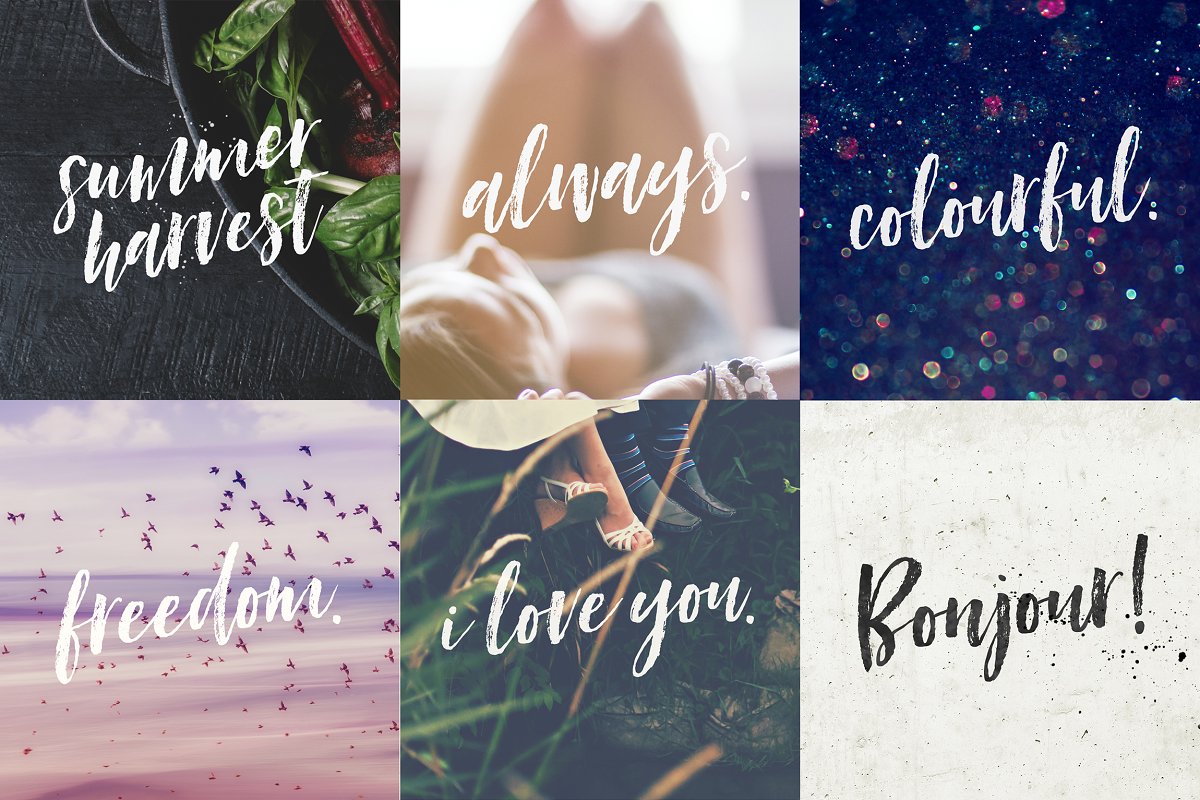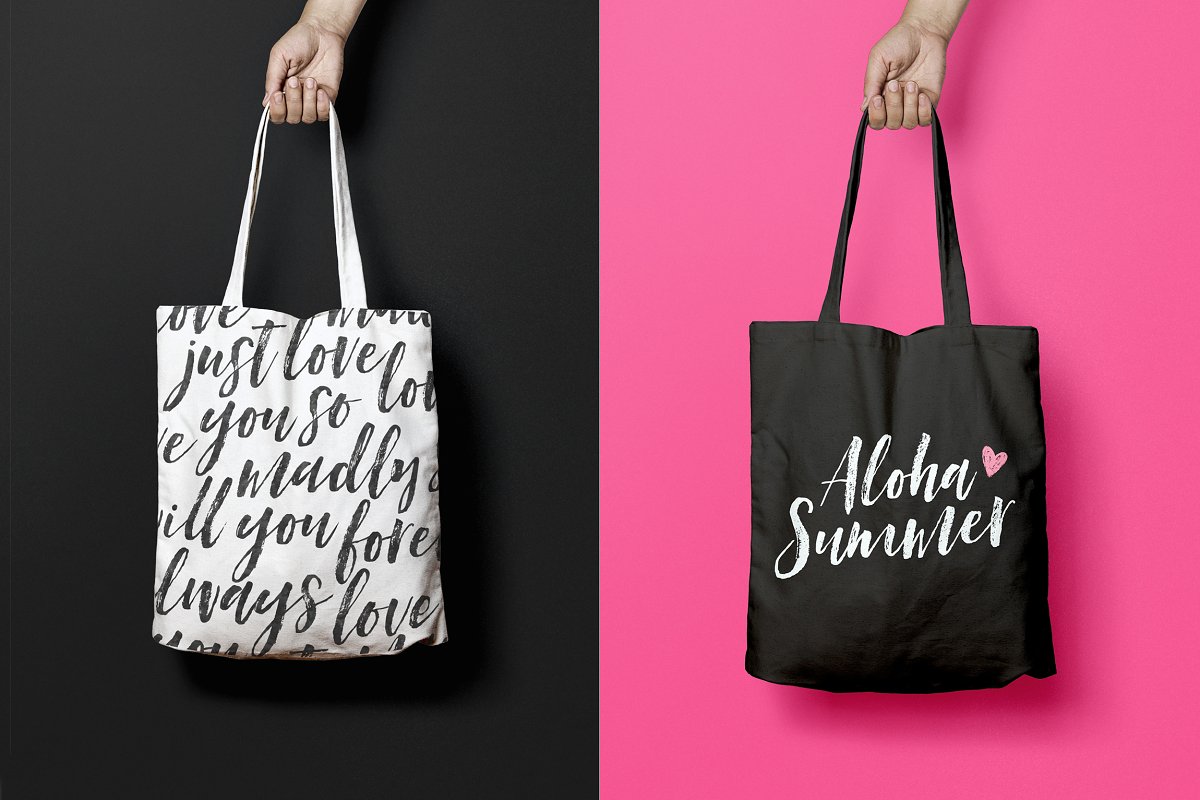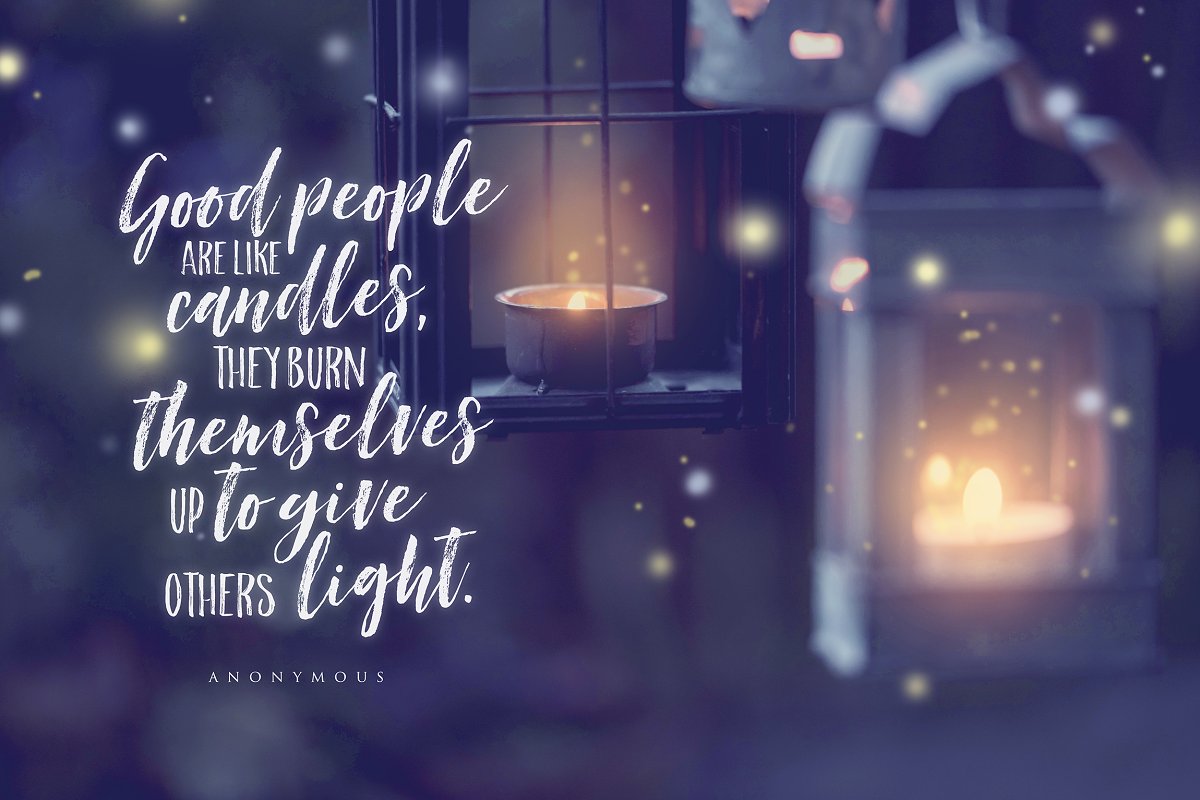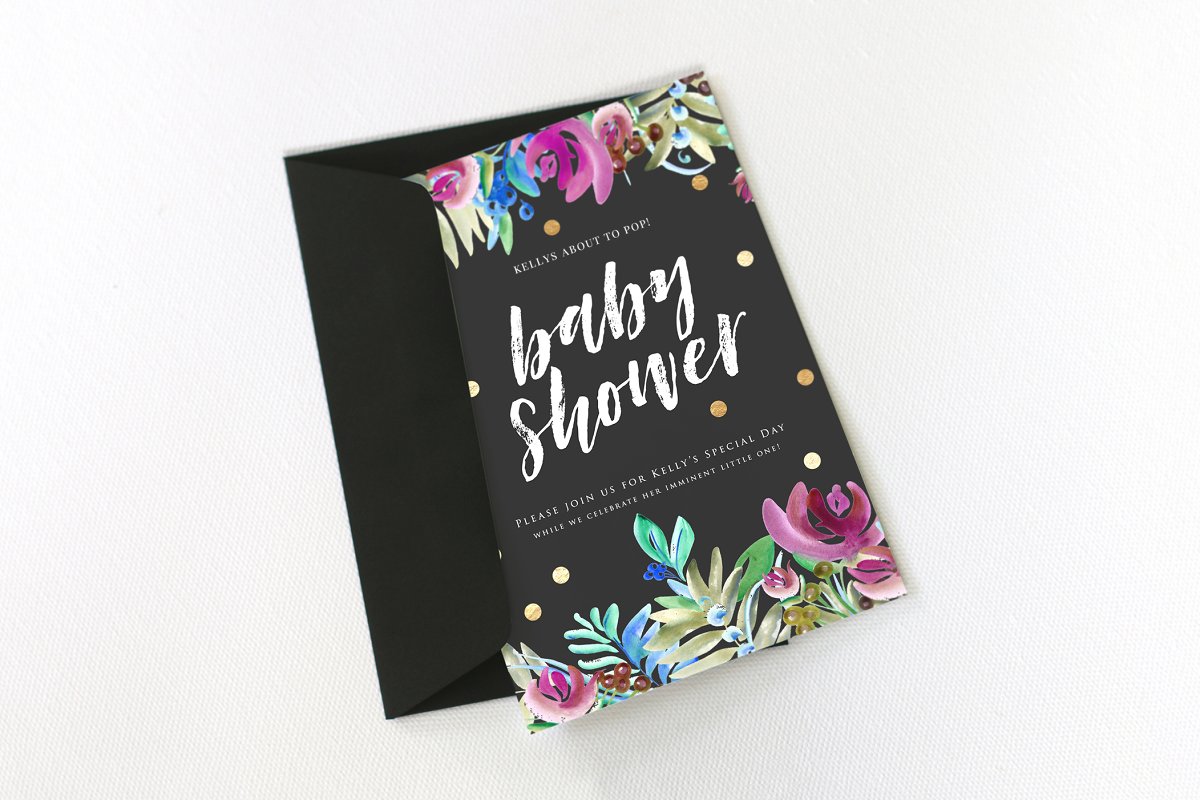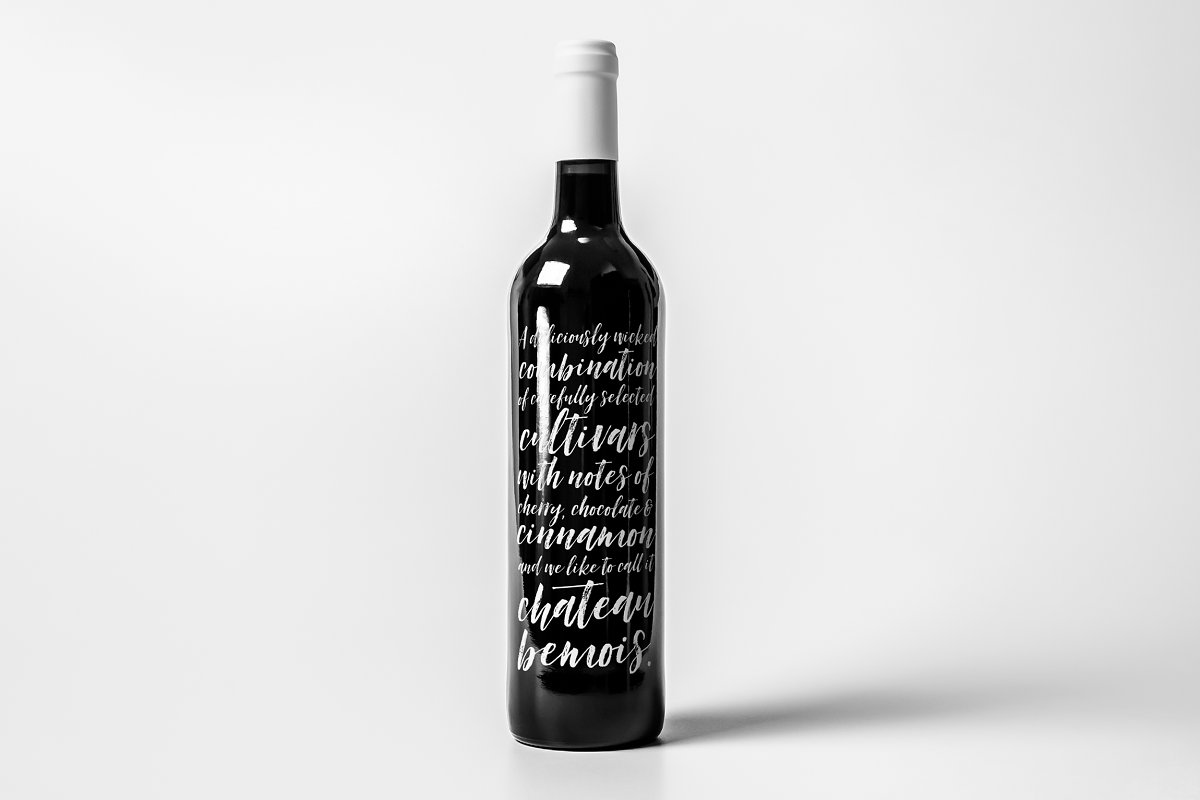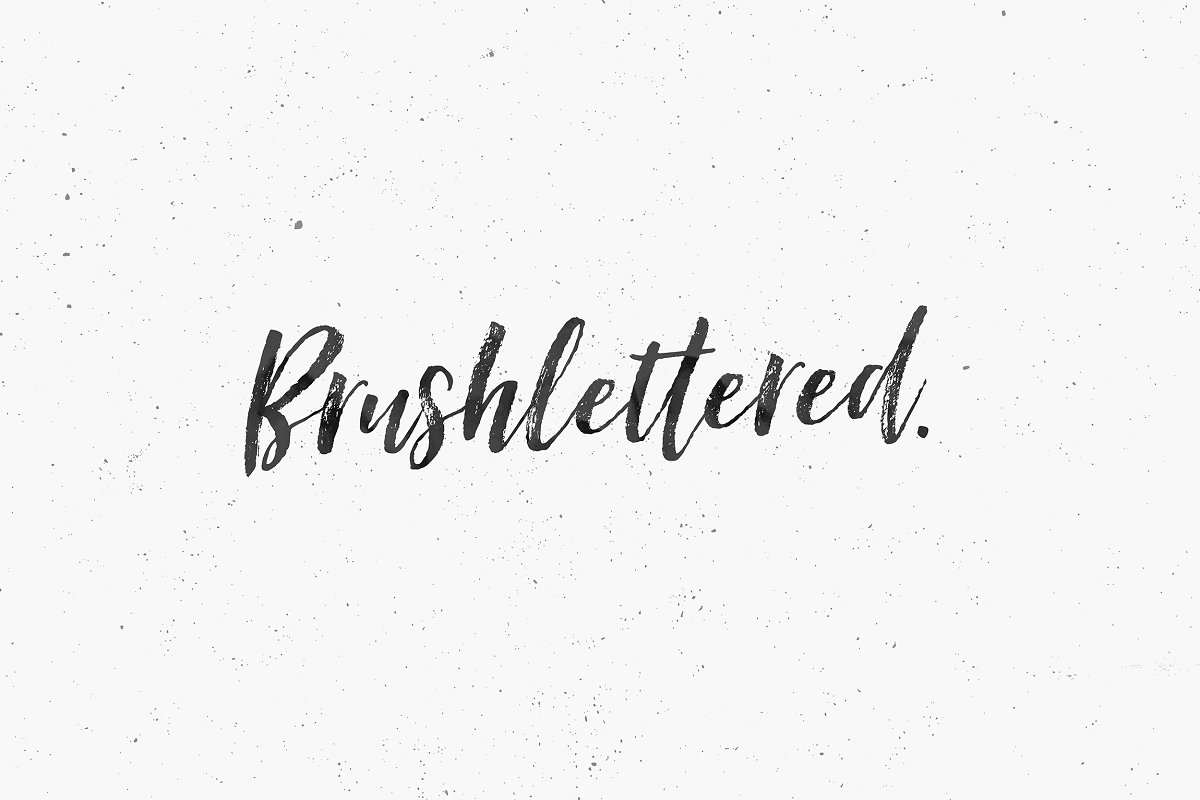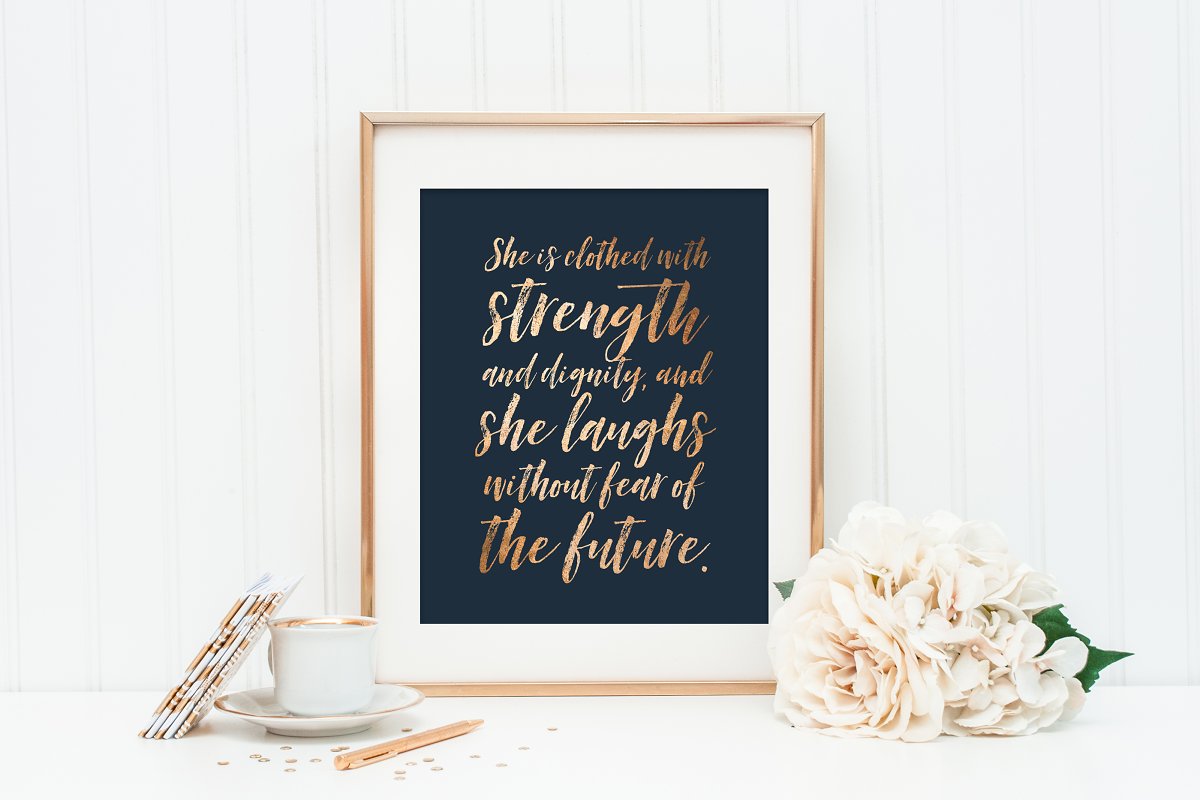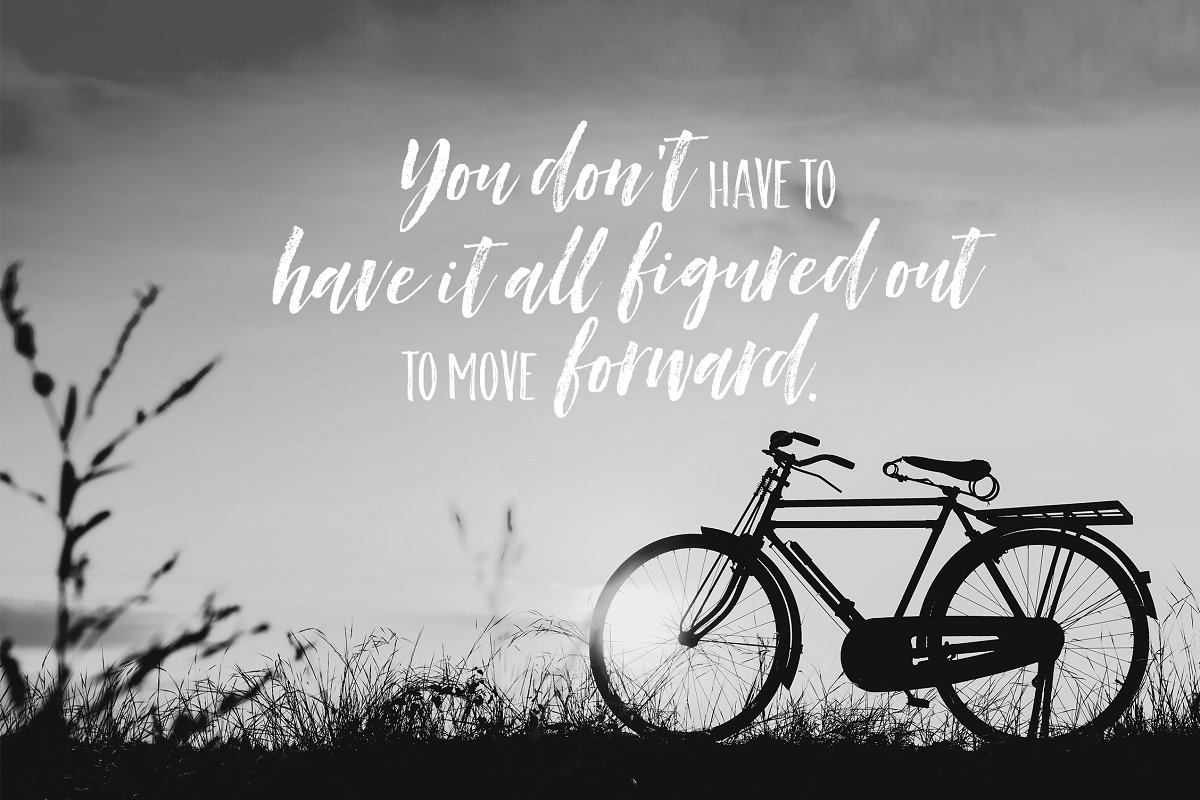
About the Island Style Brushed Duo Font
Introducing Island Style Brush Font Duo!A super-cool little duo of textured brushed fonts that go together perfectly : A super casual hand-lettered script with detailed brush stroke texture, and A quirky, all uppercase sans serif font, also sporting a dry brush texture, Together or apart, the brush fonts are perfect for an authentic brush-lettered feel on your branding, prints, merchandise, websites, quotes and more
EXTRA SET OF ALTERNATE LETTERS : To add some authenticity to your designs, Island Style brush script comes with a full set of alternate lowercase characters available as a separate handy font, ( For those who don’t have any fancy software)OPENTYPE FEATURES : For those with opentype capable software, Island Style has also been coded to include a comprehensive set of double letter ligatures, and of course the stylistic set of lowercase alternate characters, all in one handy font